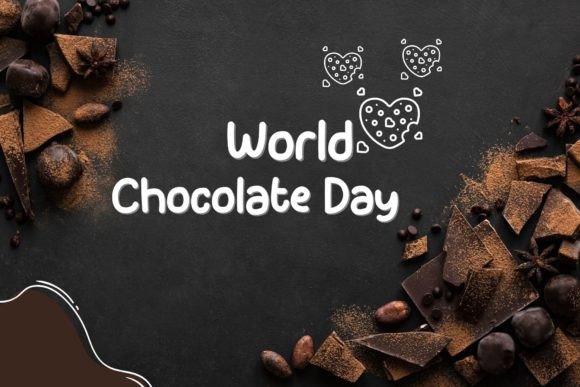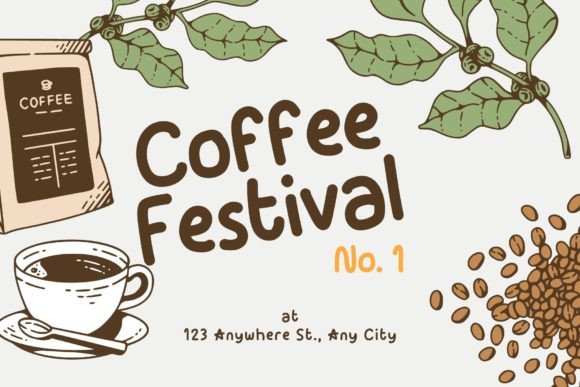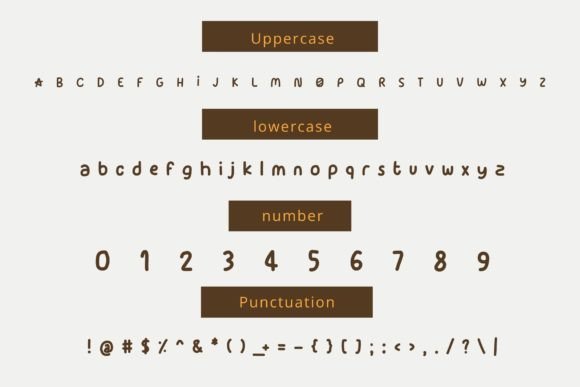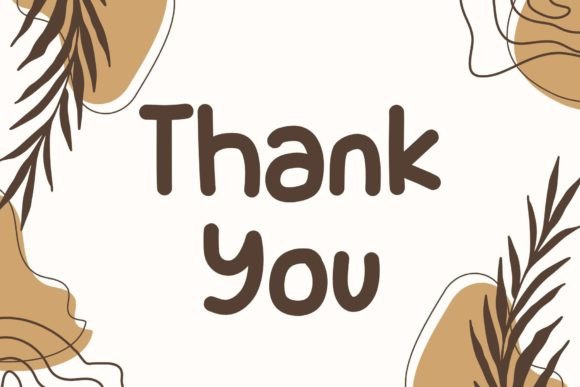
Discover the Whimsical World of Crazy a Cocoa Font
Have you ever been in the middle of a design project, and suddenly, the font you’ve been using just doesn’t cut it? You’re striving for that perfect blend of playfulness and authenticity, but it’s nowhere to be found. Well, I’ve been there too! Recently, while working on a branding project for a children’s party planning service, I found myself on a quest for a font that could capture the essence of fun and creativity. That’s when I stumbled upon Crazy a Cocoa, a cute handwritten font that has since become my go-to for all things whimsical and delightful.
A Personal Review: What I Love About Crazy a Cocoa
Crazy a Cocoa embodies the perfect blend of playfulness and authenticity, making it an excellent choice for a wide range of projects. Here are a few things that I absolutely love about this font:
- ✨ Playful and Whimsical: The font has a handwriting style that’s perfect for projects that need a personal touch.
- ✅ Highly Versatile: Whether you’re working on blog posts, logos, branding, ads, invitations, greeting cards, planners, photo albums, or decorations, Crazy a Cocoa fits right in.
- 💖 Emotional Connection: The font has a way of making your designs feel more approachable and friendly.
While Crazy a Cocoa is an amazing font, there are a few minor things to keep in mind:
- 🤔 Legibility at Small Sizes: Like many handwritten fonts, Crazy a Cocoa can get a bit tricky to read at very small sizes. It’s best used at larger sizes where its charm can shine.
- ⚠️ Overuse: Given its playful nature, it’s easy to overuse this font in a single design. Balance is key to keeping your design clean and effective.
A Practical Guide: Using Crazy a Cocoa in Your Designs
The Story Behind Crazy a Cocoa
Crazy a Cocoa was designed with the intention of capturing the whimsical nature of handwritten text. While the specific designer might not be well-known, the inspiration behind the font comes from the desire to create a typeface that’s both playful and authentic. It’s perfect for designers and crafters looking to add a personal touch to their work.
| Author | Brown Cupple Fonts |
| Is Crazy a Cocoa suitable for professional branding? | Absolutely! Its playful yet authentic feel can add a unique touch to your brand, especially if you’re targeting a younger audience or a niche that values creativity and fun. |
| Does Crazy a Cocoa support OpenType features? | Depending on the version you obtain, Crazy a Cocoa may support OpenType features, glyphs, or stylistic alternates, which can enhance your typography. |
| Is it easy to read? | Crazy a Cocoa is designed to be legible, especially at larger sizes. However, like many script fonts, it may be less readable at very small sizes. |
Crazy a Cocoa is more than just a font; it’s a way to bring personality and whimsy into your designs. Whether you’re a designer working on a client’s branding or a hobbyist crafting invitations for a party, this font has the potential to elevate your work and make it more engaging. So, go ahead and add a bit of crazy to your cocoa – your designs will thank you!